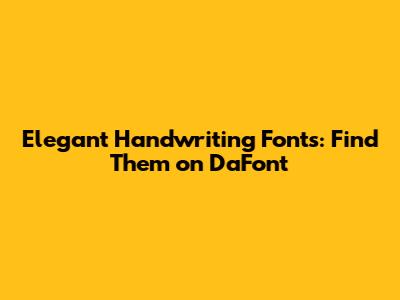
Hey guys! Are you on the hunt for that perfect, swoon-worthy elegant handwriting font? Look no further than DaFont, a treasure trove for typography enthusiasts! Finding the right font can feel like discovering a hidden gem, especially when you're aiming for that je ne sais quoi in your designs. Whether you're crafting wedding invitations, designing a chic logo, or just want to add a personal touch to your projects, elegant handwriting fonts are your secret weapon. In this article, we'll dive deep into the world of DaFont and how you can snag the most gorgeous fonts for your creative needs. So, let's get started and explore the realm of elegant handwriting fonts on DaFont!
Why Choose Elegant Handwriting Fonts?
Let's talk about why elegant handwriting fonts are such a big deal. These fonts bring a human touch to digital designs, making them feel more personal and inviting. Think about it: a beautifully scripted font can evoke feelings of romance, sophistication, and even nostalgia. It’s like a virtual signature that adds character and flair to your work. In a world dominated by clean, sans-serif fonts, opting for an elegant handwriting style can really make your message stand out. Plus, they are incredibly versatile.
Whether you’re working on a wedding invitation that screams timeless romance or a chic branding project that needs a touch of sophistication, these fonts have got your back. They can transform a simple quote into a work of art or make a blog post header look instantly more appealing. The beauty of these fonts lies in their ability to mimic the natural flow of handwriting, creating a sense of authenticity that’s hard to replicate with other font styles. When you use an elegant handwriting font, you’re not just choosing letters; you’re choosing a vibe, a feeling, an emotion. And that, my friends, is powerful stuff.
The Versatility of Handwriting Fonts
One of the best things about handwriting fonts is their versatility. They aren't just for formal occasions or high-end branding. You can use them for a wide array of projects. Imagine a heartfelt thank-you note written in a delicate script, or a motivational quote splashed across a vibrant graphic. The possibilities are endless! These fonts can add a touch of warmth to your social media posts, making your content feel more relatable and engaging. They can also bring a unique flair to your website, creating a memorable first impression for your visitors.
For those of you diving into the world of digital art, a good handwriting font can be a game-changer. You can overlay text onto your illustrations or photographs, adding a personal message or a catchy slogan. The handwritten feel creates a beautiful contrast with the visual elements, making your artwork pop. And let's not forget about the practical side of things! Elegant handwriting fonts are fantastic for creating unique headers and subheadings that draw the reader's eye. They break up the monotony of standard body text and guide your audience through your content. So, whether you're a seasoned designer or just starting out, incorporating these fonts into your toolkit is a surefire way to elevate your creative game.
How to Navigate DaFont for the Best Fonts
Navigating DaFont effectively is key to finding the best elegant handwriting fonts without getting lost in the sheer volume of options. First things first, make use of the search bar! If you have a specific style in mind, like “modern calligraphy” or “vintage script,” typing in those keywords can narrow down your search considerably. But if you're just browsing, the categorized sections are your best friend. Start with the “Fancy” category and then delve into subcategories like “Script,” “Calligraphy,” and “Handwritten.” These sections are brimming with potential treasures.
One of DaFont’s standout features is the preview tool. Each font listing allows you to type in your own text, so you can see exactly how the font will look with your words. This is super helpful for visualizing the font in your specific project. Take advantage of this feature! Play around with different phrases and sizes to get a true feel for the font’s character. Another pro tip: check the “More Options” tab on the search page. Here, you can filter fonts by various criteria, such as the number of characters, the presence of ligatures, and whether the font is monospaced. This level of customization can help you pinpoint the perfect font even more efficiently.
And let's not forget about the licensing information. Before you download a font, always check the license details. Most fonts on DaFont are free for personal use, but some require a commercial license if you plan to use them for business purposes. The license information is clearly displayed on each font page, so you can avoid any copyright hiccups down the road. By mastering these navigation tips, you'll be able to conquer DaFont and unearth the most stunning elegant handwriting fonts for all your creative endeavors!